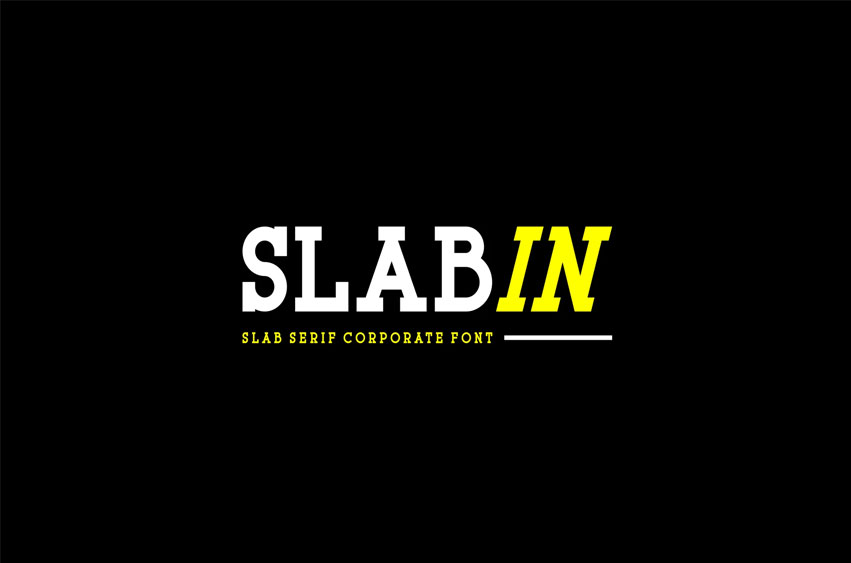
Slabin Font
Slabin Font Modern Font is a bold and authentic display font. The font is suitable for any branding project, like logos, esport, and many more.